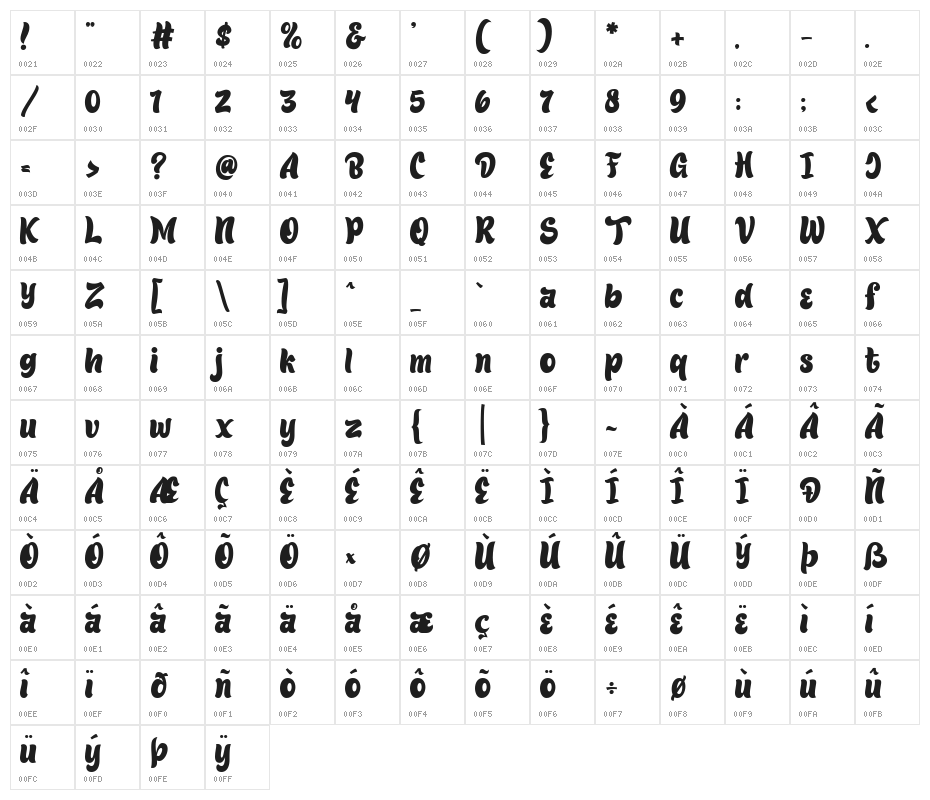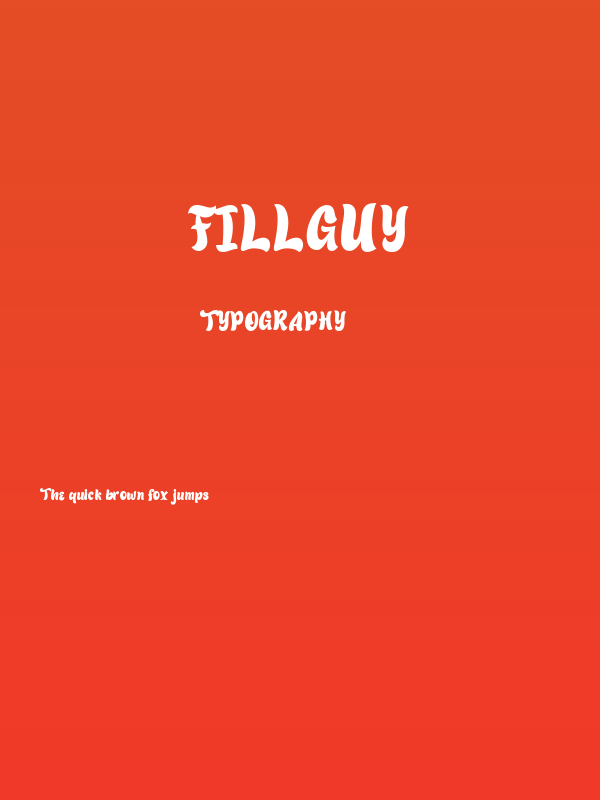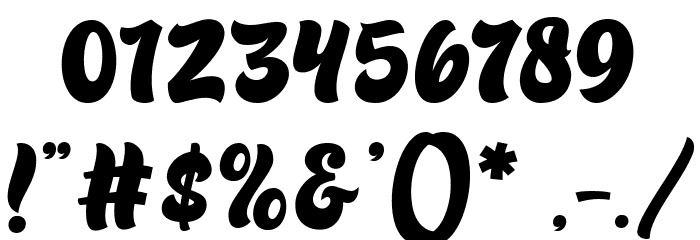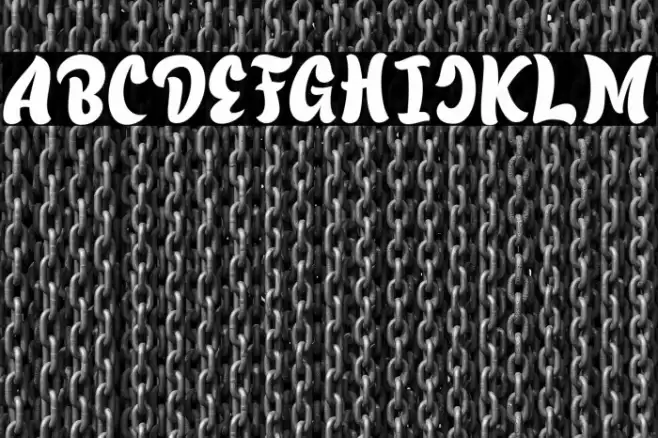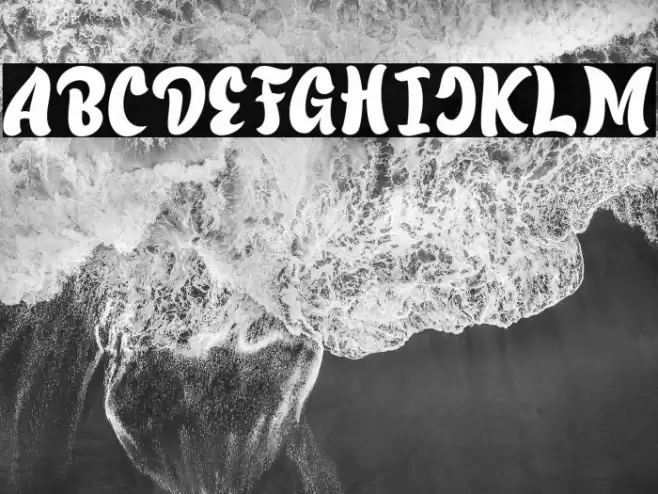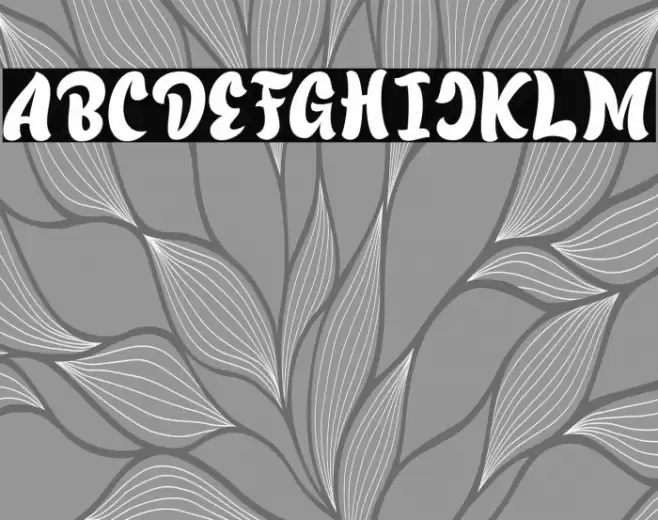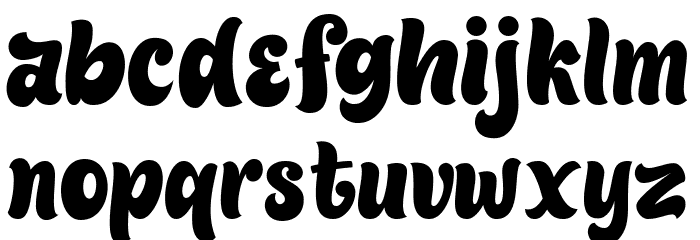
Fillguy Font
Fillguy Description
This font features a bold and playful style with thick, rounded strokes that give it a lively and energetic appearance. The characters have a whimsical, almost cartoon-like quality, with exaggerated curves and a slightly uneven baseline that adds to its charm. The uppercase and lowercase letters maintain a consistent weight, creating a harmonious look across the alphabet. The numerals and special characters follow the same design principles, ensuring a cohesive feel. This font is ideal for projects that require a fun and engaging aesthetic.